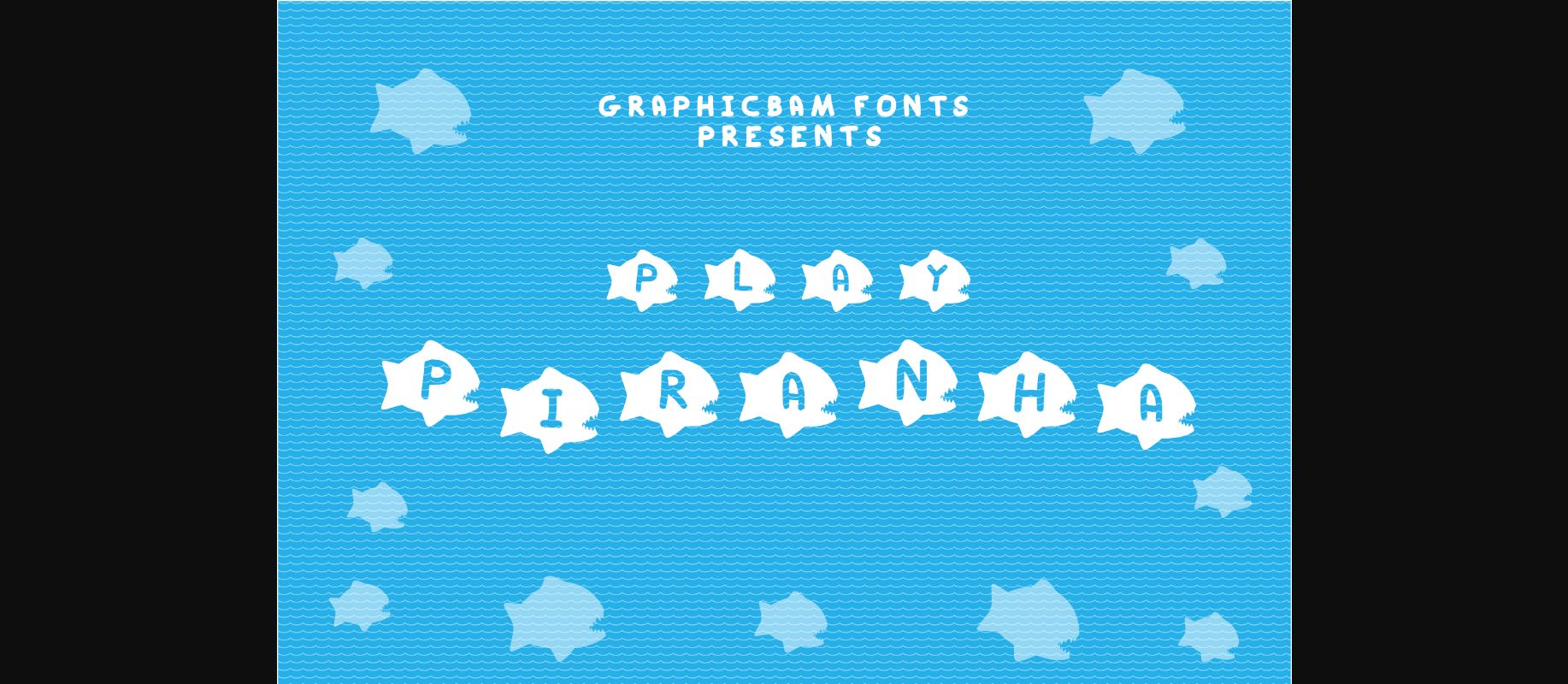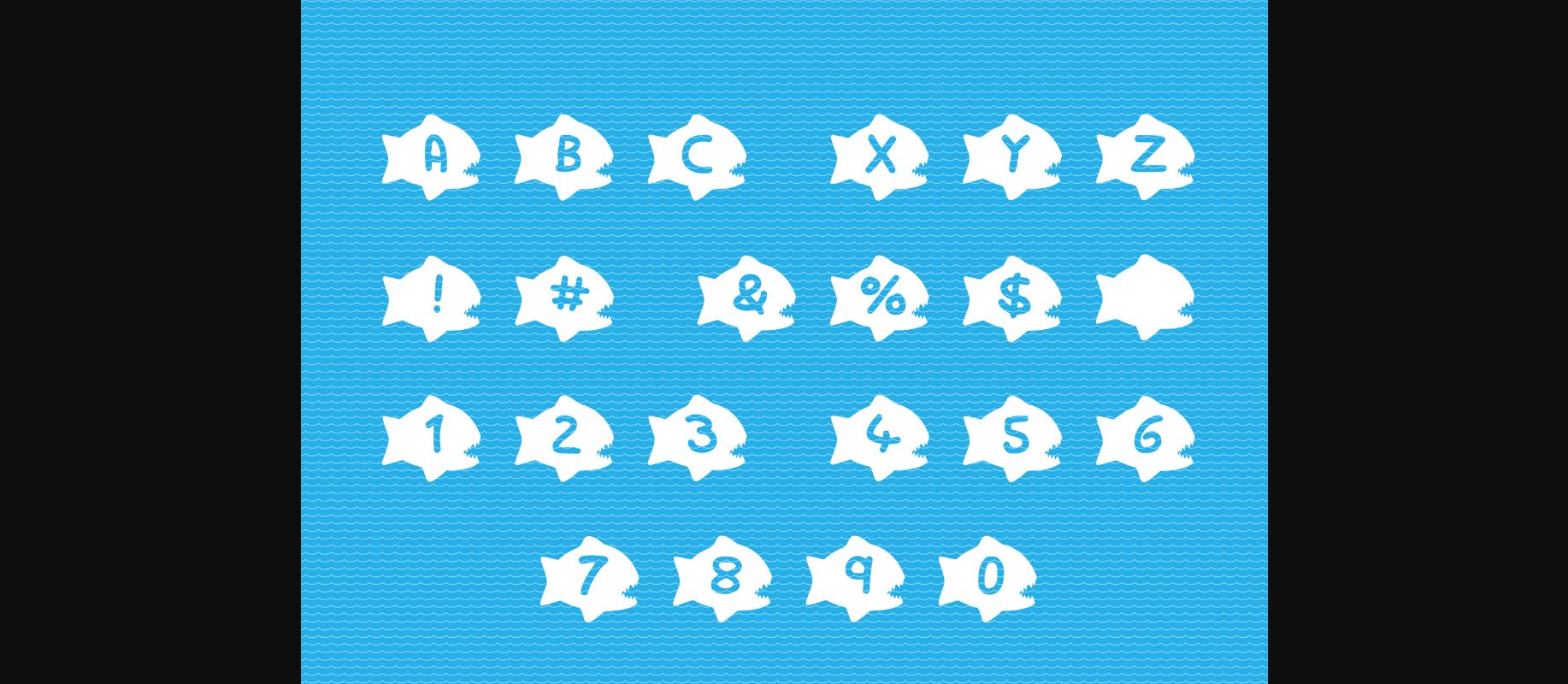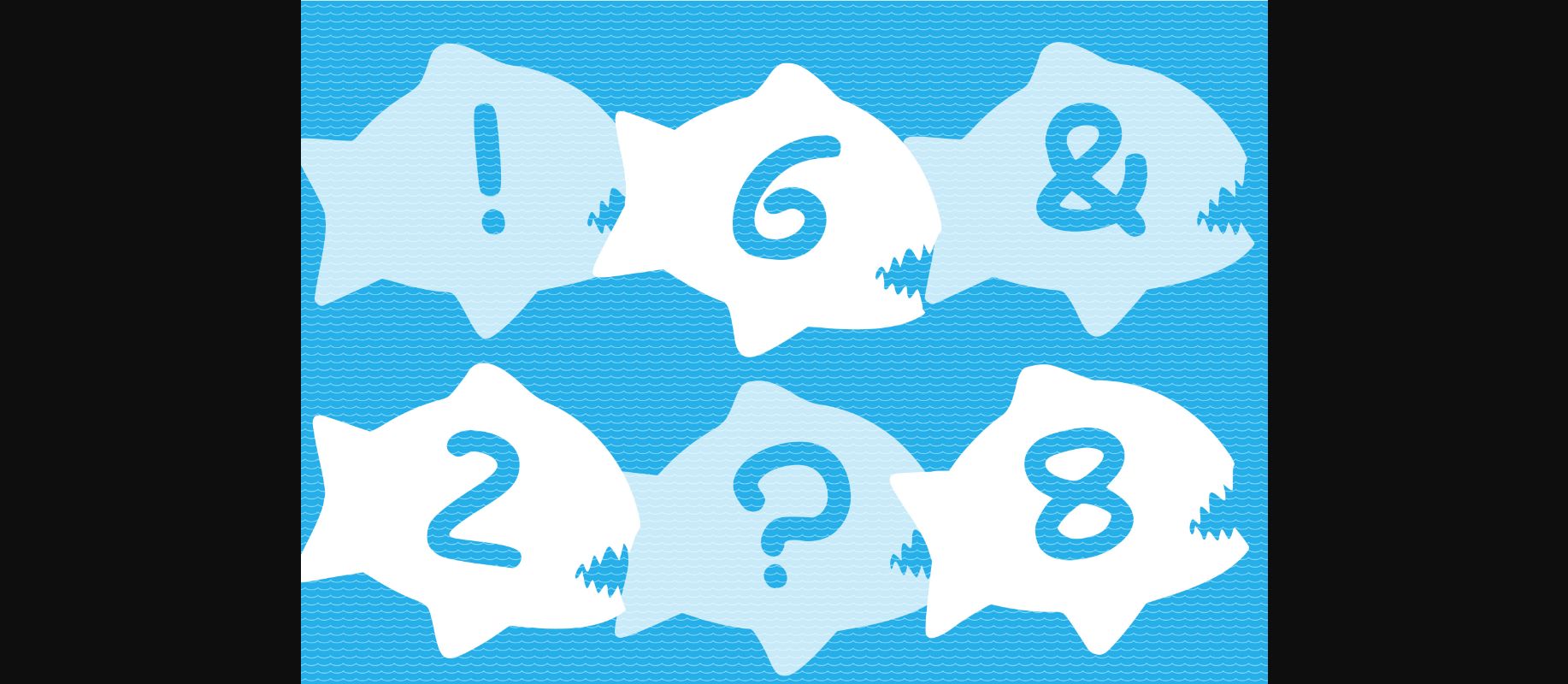
Play Piranha is a fishy decorative font, perfect to use in your creative projects that need fun and inviting typography! Try it on storybooks, encyclopedia covers, movie titles, children’s designs, or anything else.